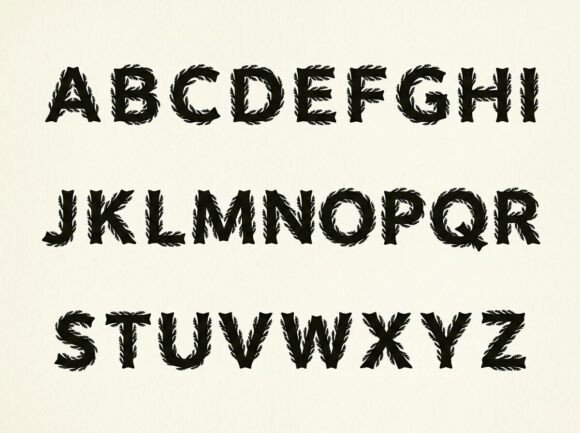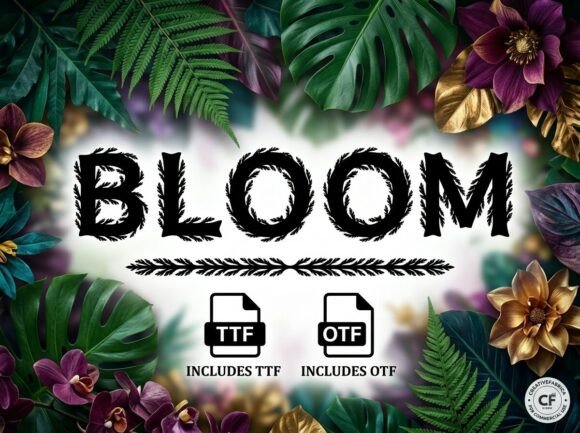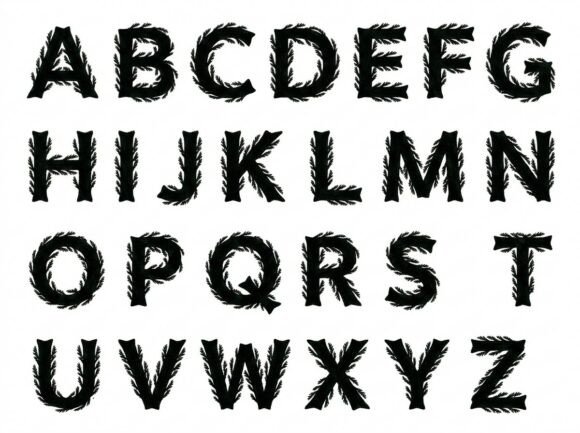
When Words Become Art: The Allure of Bloom Font
Have you ever stared at a blank page, feeling the weight of creativity on your shoulders? You want to make a statement, to leave a lasting impression on your audience. That’s where the Bloom Font comes in – a game-changing, avant-garde display font designed to be the centerpiece of any composition.
This masterpiece is crafted for the bold, the fearless, and the artistic. With its commanding visual personality and unique flourishes, the Bloom Font is perfect for those who refuse to blend in. Whether you’re creating high-end packaging, conceptual posters, or signature logos, this font will elevate your work to new heights. Its polished finish and intricate craftsmanship make it an invaluable asset for designers seeking to make a lasting impact.
Bloom Font Key Features
- Unique Characteristics: Bloom Font features a unique blend of modern and vintage elements, with intricate details and subtle texture, making it perfect for designs that require a touch of elegance and sophistication.
- Letterforms and Spacing: The font’s letterforms are carefully crafted to provide optimal spacing and legibility, ensuring that text remains clear and readable even at smaller font sizes.
- Weight and Style Options: The font family includes a range of weights and styles, from light to bold, and sans-serif to script, providing designers with flexibility and creativity in their design choices.
Bloom Font Review
I’ve had the chance to work with the Bloom font, and I have to say, it’s a mixed bag. ✨ On the plus side, the font’s floral and whimsical feel is perfect for projects that need a touch of elegance and sophistication. The letterforms are delicate and intricate, making it a great choice for branding and packaging design. The font also comes in a variety of weights, which is a big plus.
- ✨ Elegant and sophisticated feel
- ✨ Delicate and intricate letterforms
- ✨ Variety of weights available
However, there are a few limitations to consider. ⚠️ The font can be quite difficult to read at smaller sizes, which might limit its use in certain contexts. Additionally, the font’s flair and embellishments can make it difficult to pair with other fonts, which might limit your design options.
- ⚠️ Difficult to read at smaller sizes
- ⚠️ Can be challenging to pair with other fonts
Overall, the Bloom font is a solid choice for projects that require a touch of elegance and sophistication. While it may have some limitations, its unique feel and variety of weights make it a great addition to any designer’s toolkit.
Tips for Getting the Most Out of the Bloom Font
Use the Bloom font for titles and headings to add a touch of elegance to your designs. Experiment with different font sizes and colors to create visual interest. Combine the Bloom font with other fonts to create a unique and eye-catching typography.
The Bloom font is perfect for:
– Editorial and magazine design
– Packaging and product design